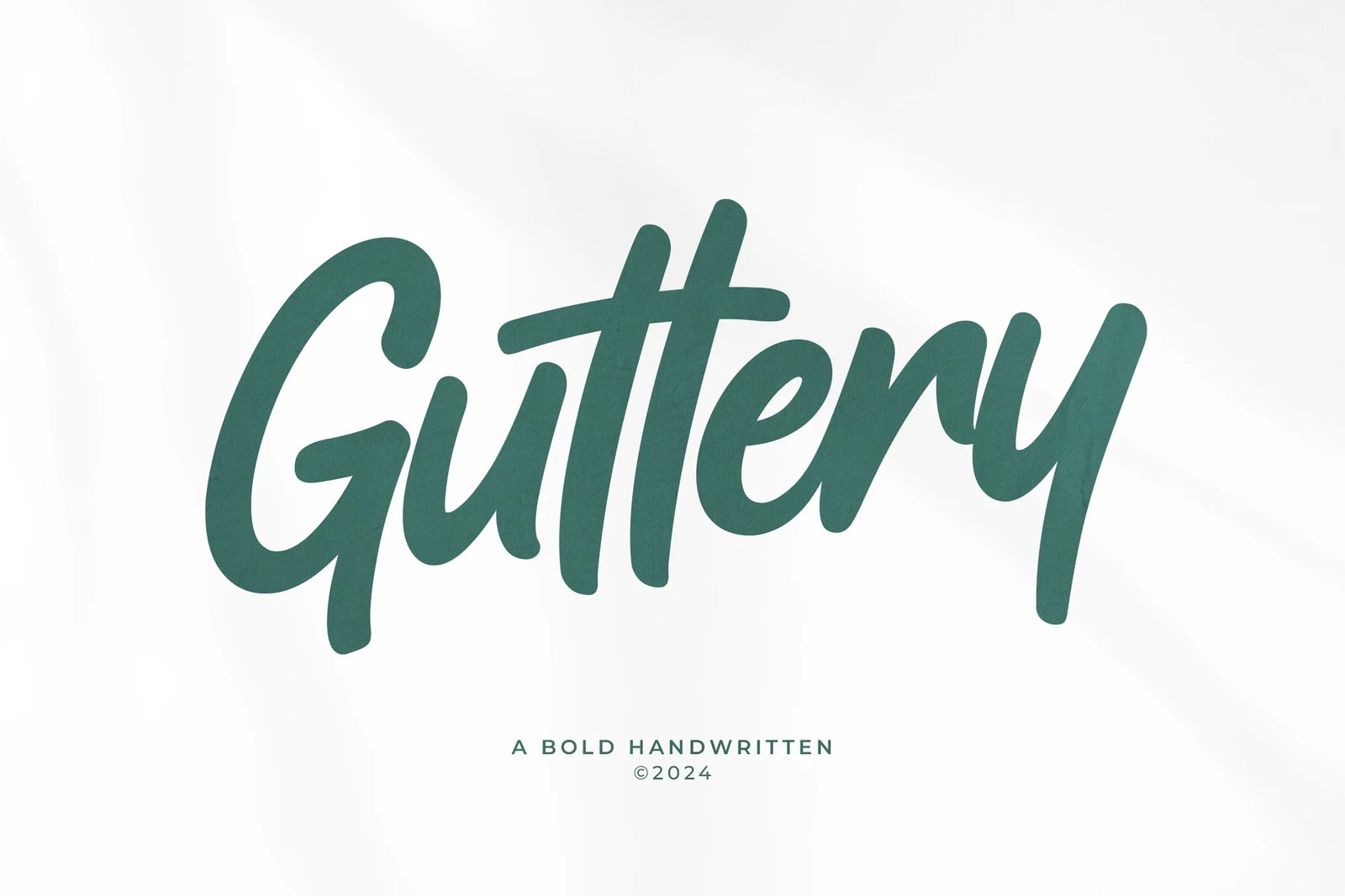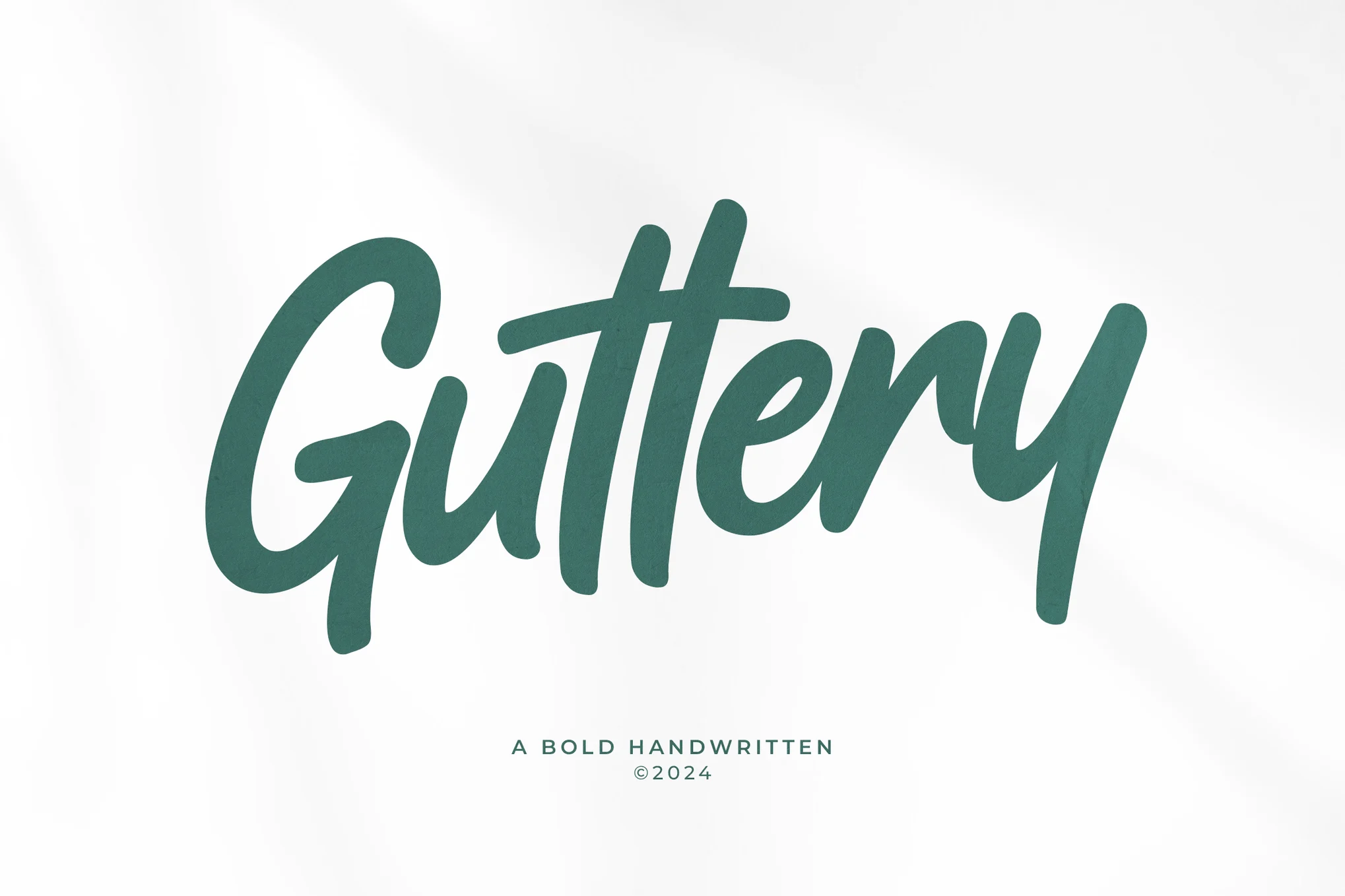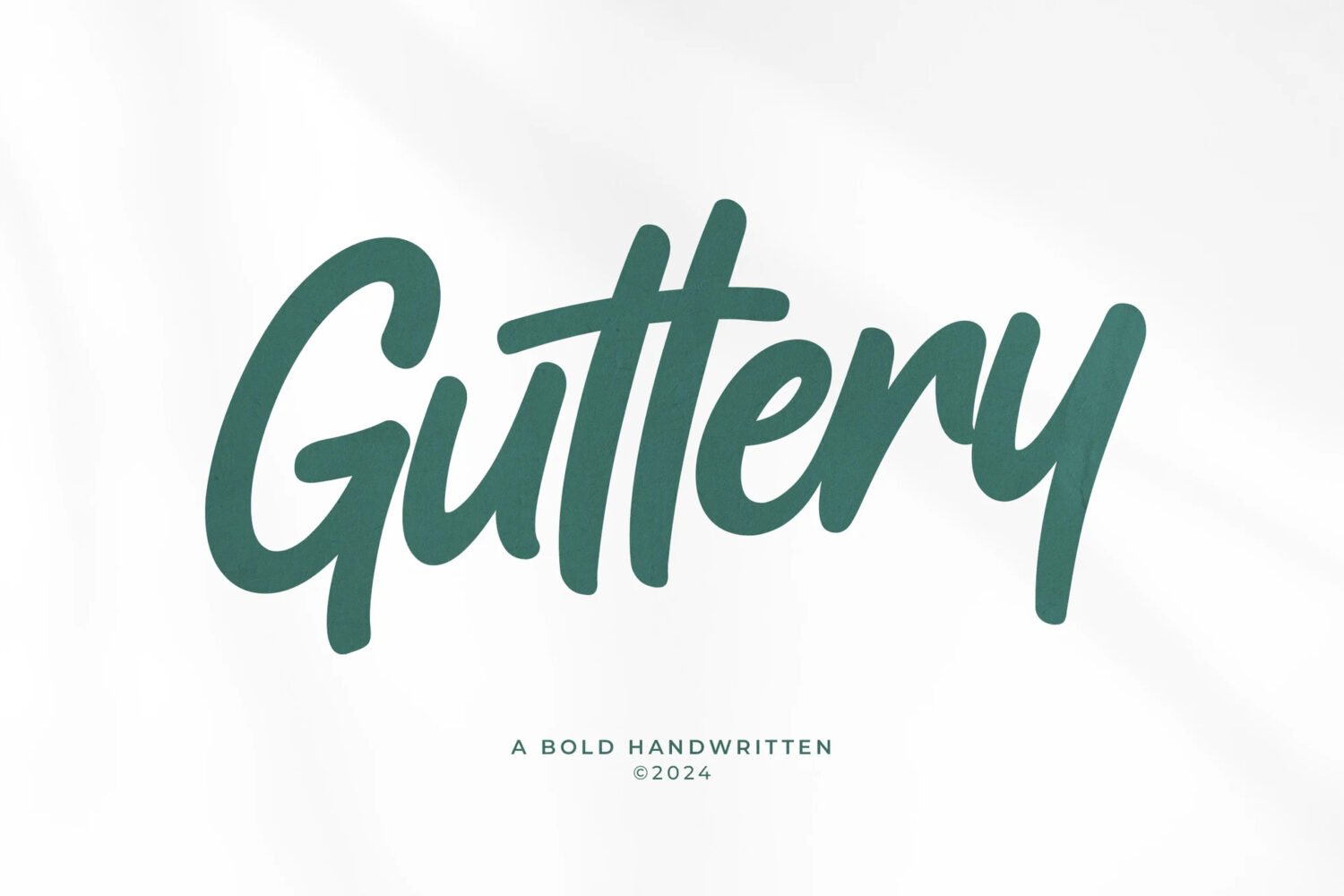
Vault Zxnova – Guttery Bold Handwritten Font
Guttery by Vault Zxnova is a bold and authentic handwritten font crafted to make your designs stand out with exclusivity and genuine style. Featuring OpenType features like end alternates, ligatures, and underline sets, Guttery enhances any creative project with a personal touch.
It supports all English characters, includes some multilingual glyphs, and comes with standard punctuation marks, making it versatile for various design needs.
Guttery: The Bold & Exclusive Handwritten Font
Introduce an unmatched level of authenticity and confidence to your creative projects with **Guttery**, a powerfully **bold handwritten font**. This unique display typeface is crafted to ensure your work immediately looks **exclusive**, premium, and truly **stands out** from the competition.
The **authentic** flow of Guttery is enhanced by professional-grade **OpenType features**, allowing for endless customization and a realistic hand-lettered aesthetic. Use Guttery for eye-catching logo design, dynamic packaging, bold social media quotes, or distinctive apparel design.
Key Features for Professional Design:
- OpenType Features: Includes **End Alternates** and various **Ligatures** to ensure a natural, flowing handwritten look.
- Authentic Style: Delivers an immediate sense of exclusivity and handcrafted quality.
- Language Support: Comprehensive support for all English characters, plus selected characters for **multiple languages**.
- Special Typography: Features a practical **Underline** set for extra emphasis.
| Bold Handwritten Style | Exclusive and authentic handwritten look. |
| OpenType Features | Includes ligatures, end alternates, and underline sets. |
| Character Support | Full English alphabet, some multilingual characters, and standard punctuation. |
Guttery adds a handcrafted flair to your designs, perfect for branding, packaging, posters, and other standout creative projects.